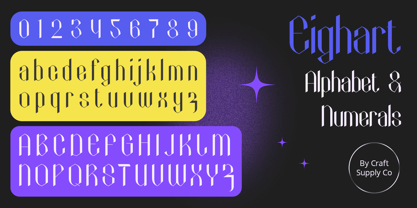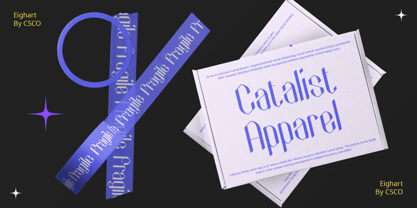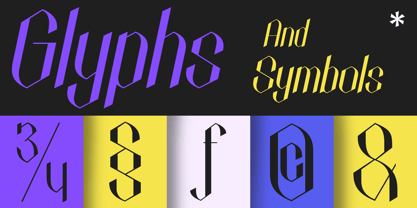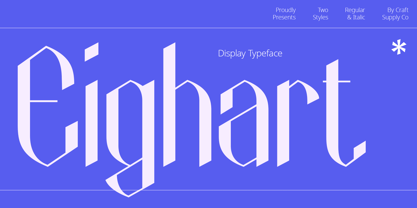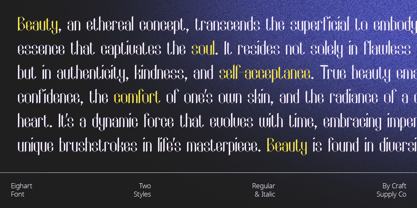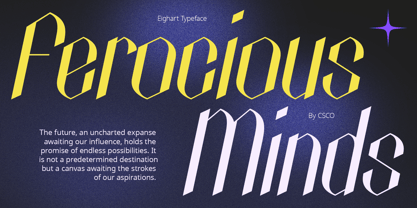
Eighart
by Craft Supply Co
The Eighart Font Family was designed by Trio Nazzar Saputra, Wahyu Hadi Yuana and published by Craft Supply Co. Eighart contains 2 styles and family package options.
Eighart Font: Where High Contrast Meets Tech Vibes
Futuristic Elegance
Eighart Font, a display font born from technological inspiration, seamlessly blends high contrast with futuristic elegance.
The Essence of Tech Font
Immerse yourself in the essence of tech font with Eighart. Its sleek lines and sharp edges capture the spirit of modern technology, making it a perfect choice for projects seeking a cutting-edge feel.
High Contrast Brilliance
Eighart doesn’t just play with tech vibes; it embraces high contrast brilliantly. Every character is meticulously crafted to stand out, ensuring maximum visual impact in any design.
Versatility Beyond Tech
While rooted in technology, Eighart transcends its origin. Its versatility allows it to grace a spectrum of projects, from sleek tech presentations to avant-garde editorial layouts.
Conclusion
Eighart is a symphony of high contrast and tech-inspired aesthetics. Elevate your designs with a font that not only captures the essence of technology but also adds a touch of futuristic elegance to your creative endeavors.
Designers: Trio Nazzar Saputra, Wahyu Hadi Yuana
Publisher: Craft Supply Co
Foundry: Craft Supply Co
Design Owner: Craft Supply Co